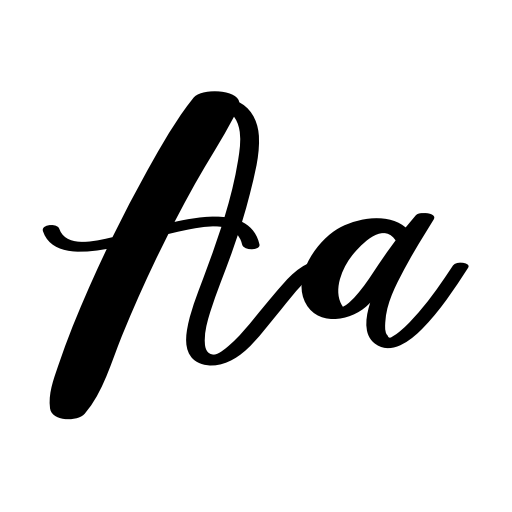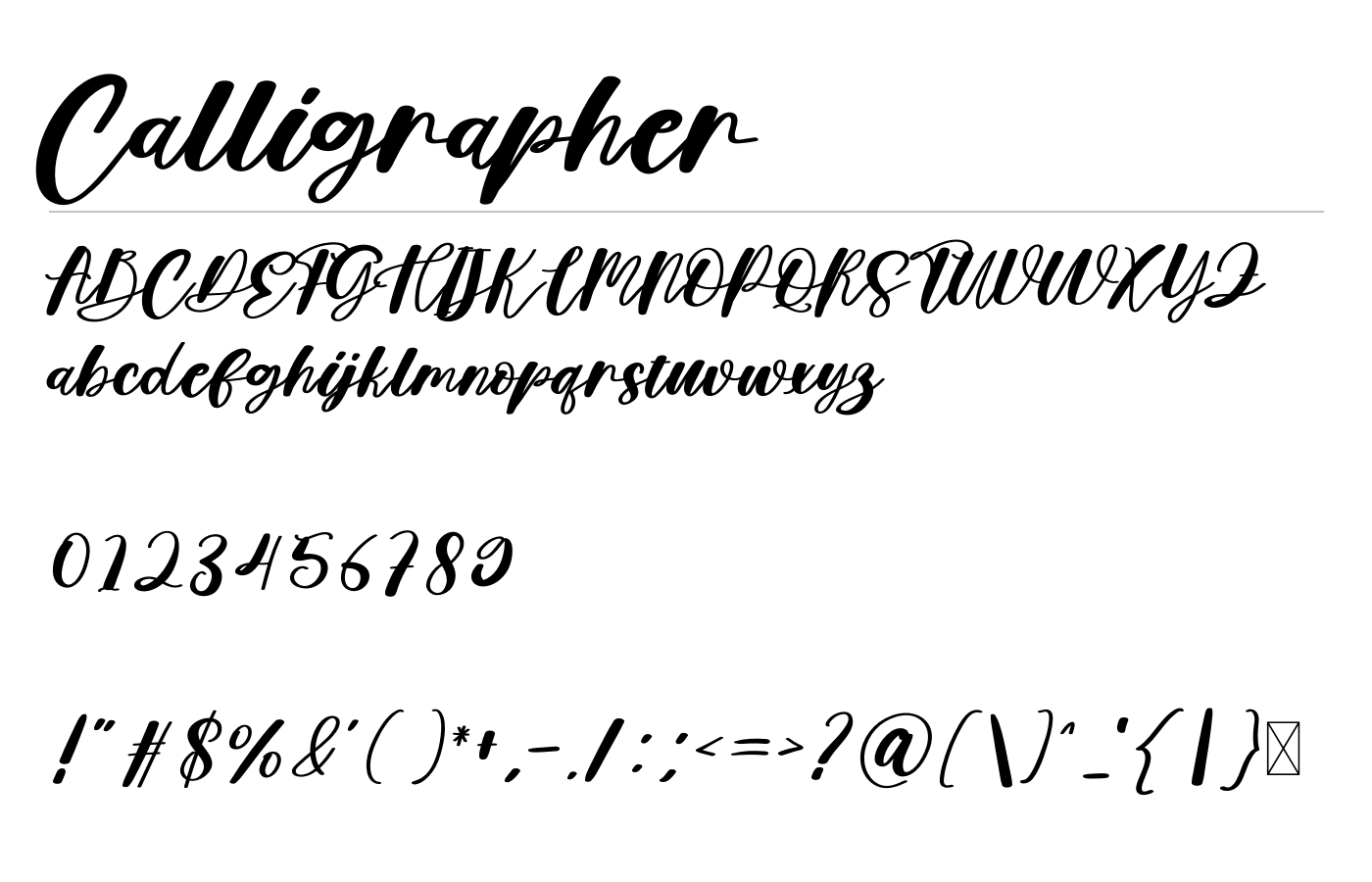
Calligrapher is a stylish script font with smooth, flowing strokes that evoke the elegance of hand-lettered calligraphy. It features a blend of thick and thin lines with graceful curves, making it perfect for luxury branding, invitations, and decorative headings that seek a personal, artistic touch. This font brings a sophisticated yet approachable feel to any design that needs a refined and expressive look.
Calligrapher Font